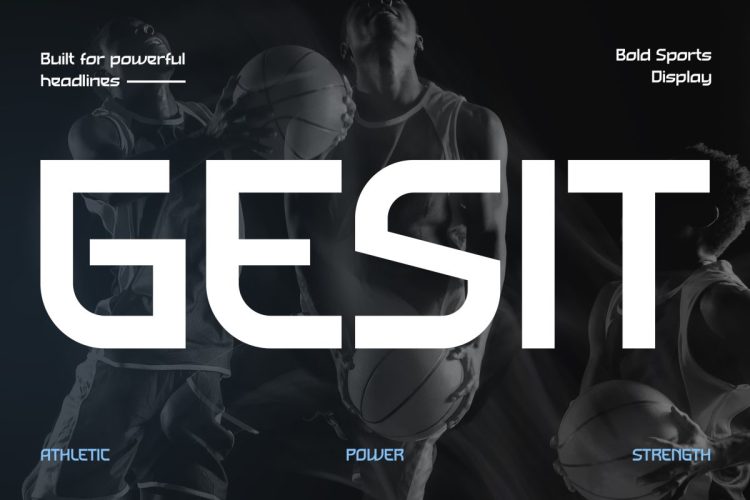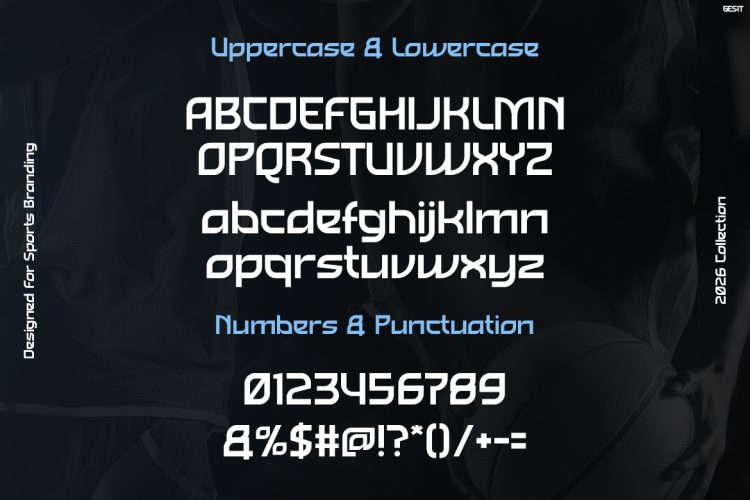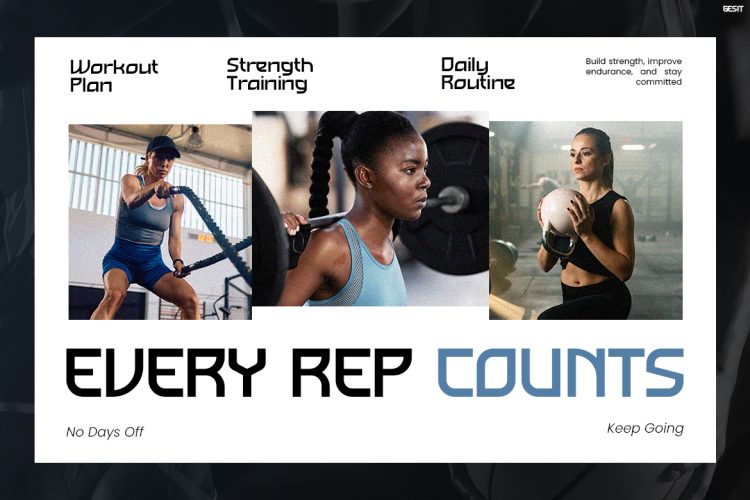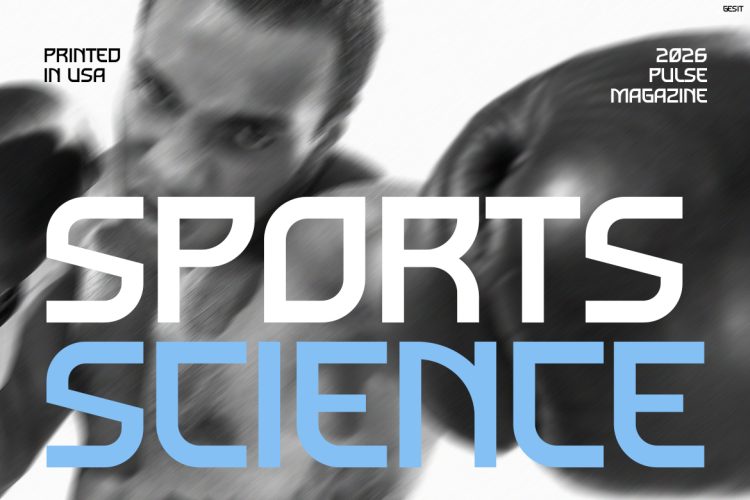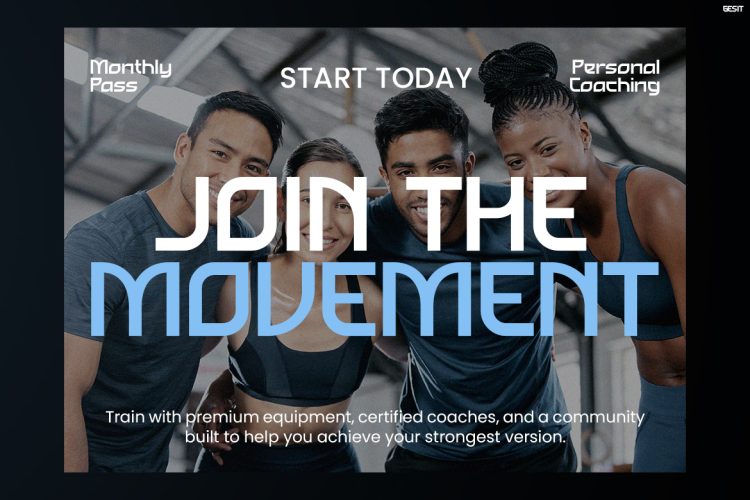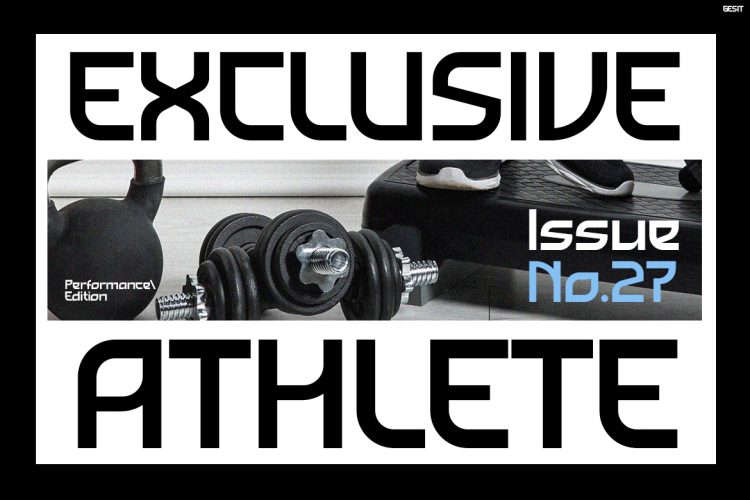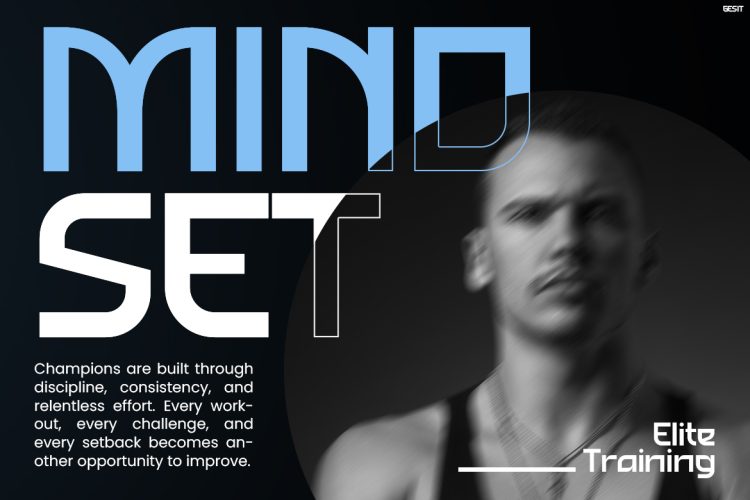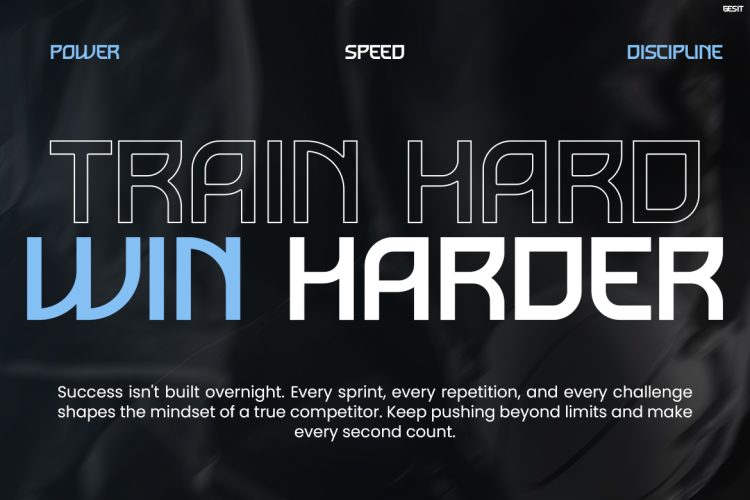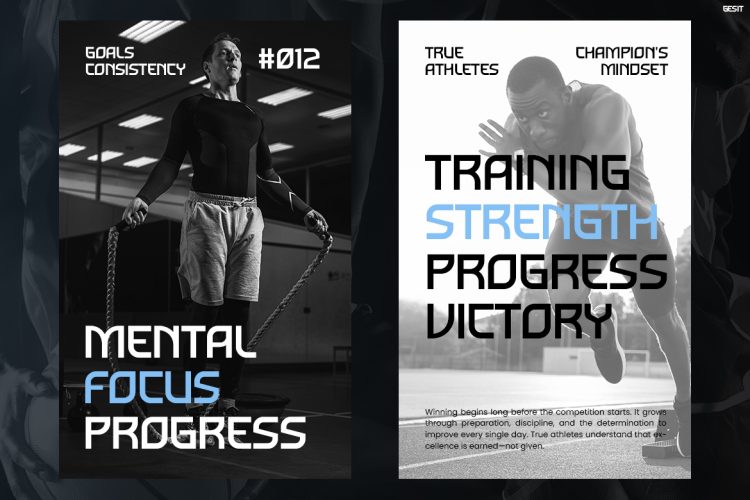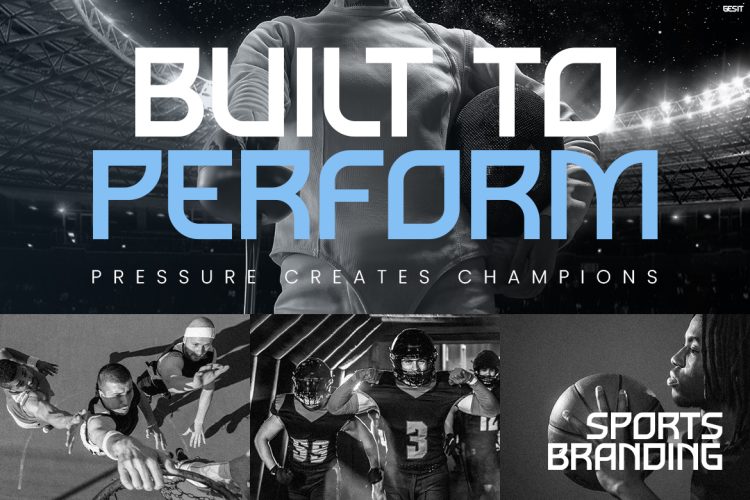
Sport Font GESIT โ Bold Athletic Typeface for Sports Branding, Fitness & Performance
Sport Font GESIT is a bold, futuristic display font built to capture speed, strength, and determination. From the first glance, its geometric letterforms and sharp angles create a powerful athletic identity. Moreover, the clean lines deliver a modern tech-inspired aesthetic that instantly grabs attention. As a result, every headline looks energetic, confident, and ready for action. At the same time, the balanced structure ensures excellent readability across both digital and print media. Furthermore, GESIT adds a professional edge to sports branding, helping every design feel bold and competitive.
Why You’ll Love It
Sport Font GESIT is designed for creators who want to communicate performance and power. Not only does it make headlines stand out, but it also enhances logos, posters, apparel, and promotional materials with a strong visual impact. In addition, its versatile style fits fitness brands, esports graphics, sports magazines, gym campaigns, product packaging, and social media content. Likewise, the futuristic design pairs perfectly with modern branding. Most importantly, it helps your projects leave a lasting impression while maintaining a clean and professional appearance.
Sport Font GESIT Perfect For
- Sports brands and fitness companies
- Gym promotions and workout programs
- Esports teams and gaming content
- Athletic apparel and merchandise
- Sports magazines and editorials
- Event posters and competition graphics
- YouTube thumbnails and social media
- Modern logos and performance branding
Push Every Design Further
If you want your designs to look stronger and more dynamic, Sport Font GESIT is the perfect choice. Furthermore, its bold character elevates every project with confidence and energy. Therefore, designers, marketers, and content creators can build eye-catching visuals with ease. Finally, choose GESIT today and turn every headline into a powerful statement that demands attention.